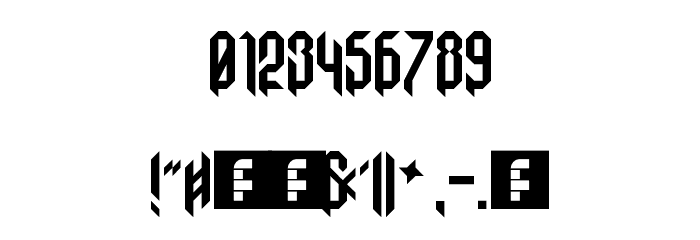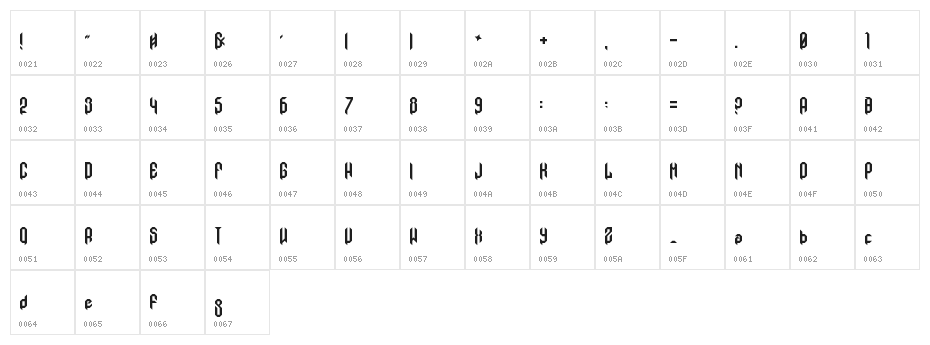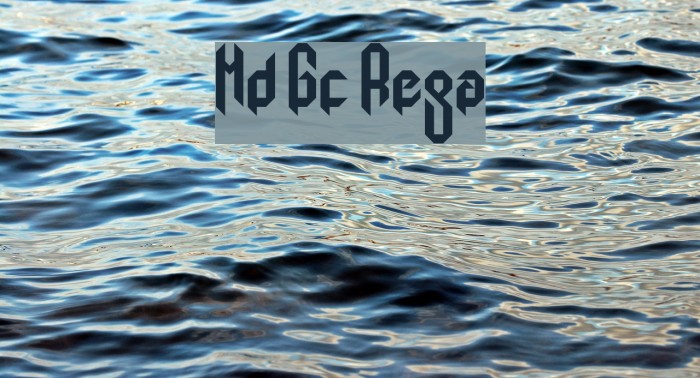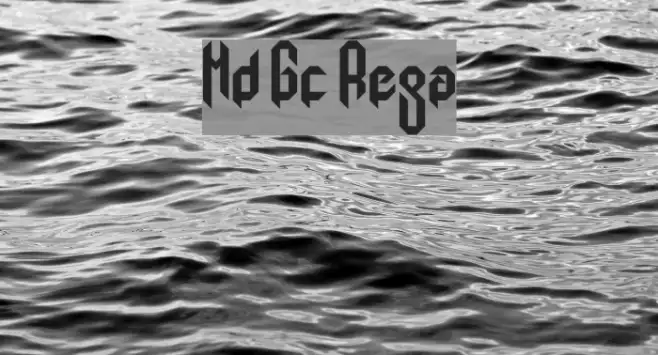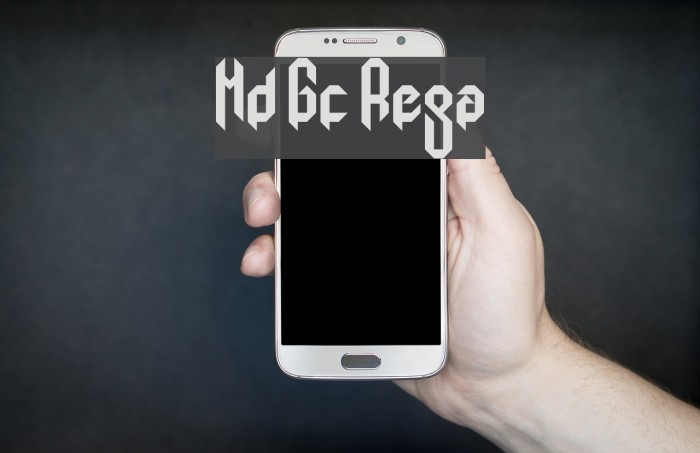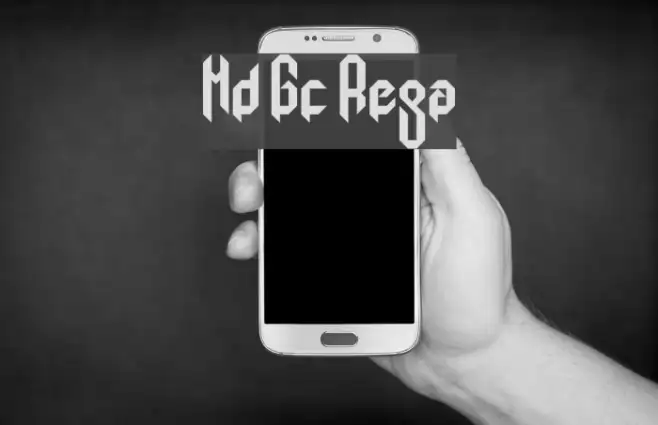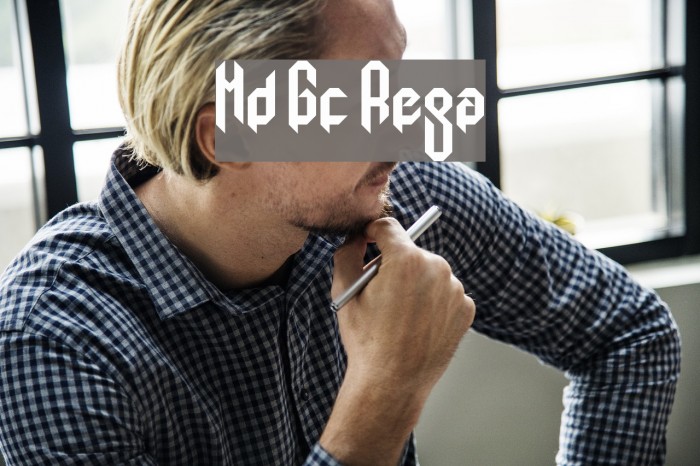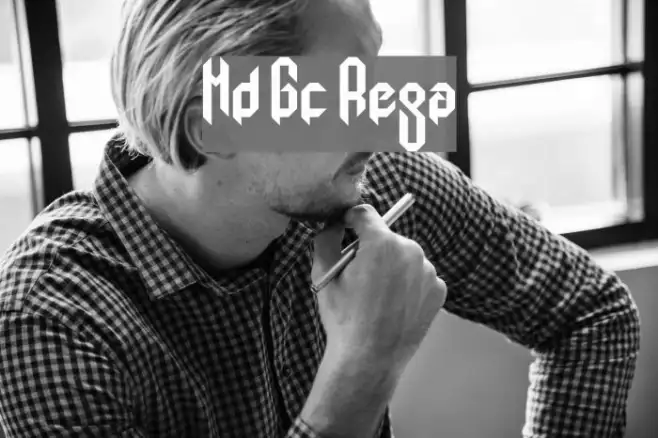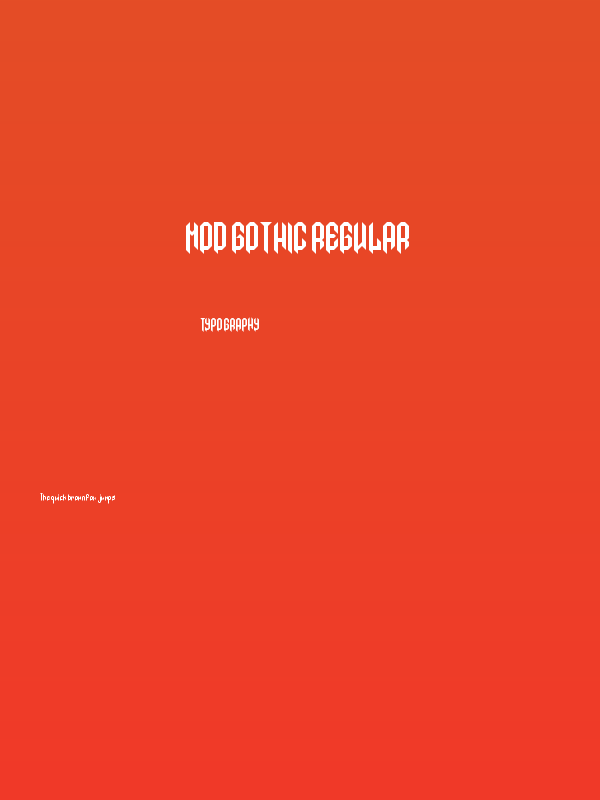
Mod Gothic Regular Font
Mod Gothic Regular Description
This font features a bold and striking design with sharp, angular edges that give it a modern gothic appearance. The uppercase letters are tall and imposing, while the lowercase letters maintain a consistent style with slightly less height. Numbers and special characters follow the same angular theme, ensuring a cohesive look across all characters. The font's geometric shapes and clean lines make it highly legible despite its decorative style. It is well-suited for projects that require a strong visual impact, such as branding or poster design.
Overall StyleModern Gothic
Proposed ProjectsIdeal for branding, poster design, album covers, and any project needing a bold, modern gothic aesthetic.